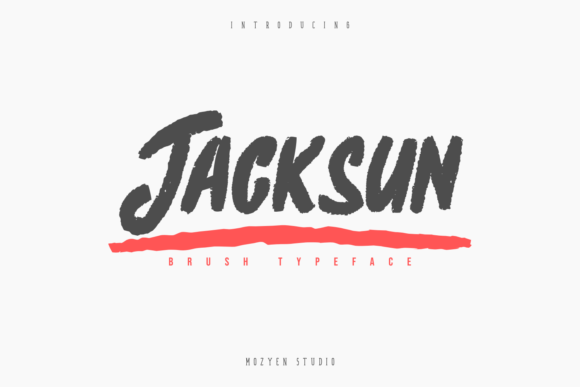
Immerse yourself in the realm of captivating typography with Jacksun Font, a display font that exudes boldness and distinctiveness. Its graceful curves and striking edges dance together in perfect harmony, creating a visual spectacle that demands attention.
With its innate charm and versatility, Jacksun Font effortlessly adapts to a myriad of contexts, making it the perfect choice for designers seeking to make a lasting impression. Unleash your creativity and let Jacksun Font transform your projects into masterpieces.
Experience the unparalleled elegance of Jacksun Font in poster designs that come alive with vibrant colors and captivating messages. Its bold presence commands attention, ensuring your posters stand out in the crowd, leaving an indelible mark on the minds of your audience.
Dive into the world of flier design with Jacksun Font as your trusted companion. Its unique charm adds a touch of playfulness and intrigue, drawing the eyes of potential customers and urging them to explore your offerings. Let Jacksun Font elevate your fliers to new heights, propelling your business to success.
Jacksun Font's PUA encoding unlocks the gateway to a treasure trove of glyphs and swashes, empowering you to unleash your creativity like never before. Effortlessly access these hidden gems and weave them into your designs, adding intricate details and flourishes that captivate and enchant your audience.